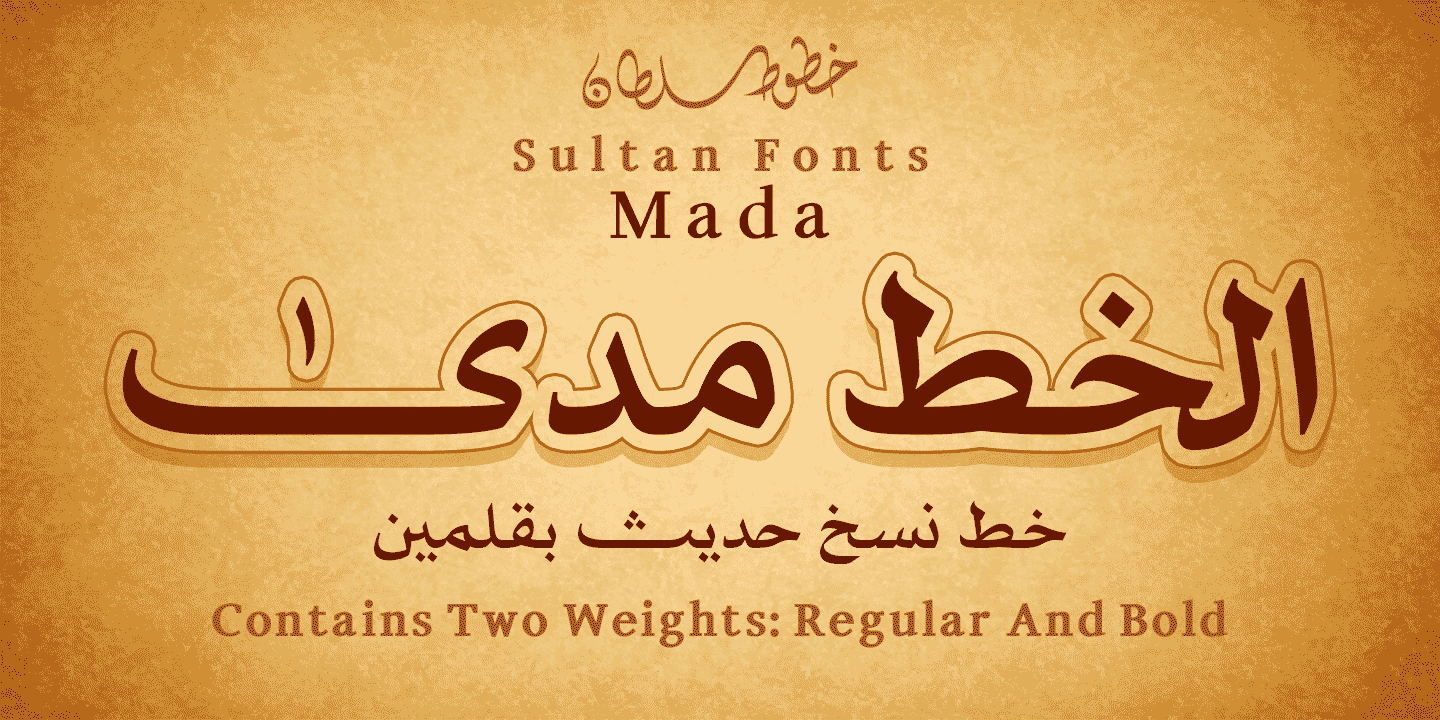
Perfect for Arabic-English bilingual publications, Middle Eastern cultural branding, international business communications, multilingual website design, global corporate materials, cross-cultural marketing campaigns, diplomatic documentation, and contemporary Arabic typography applications.
This font is exciting because it seamlessly bridges Arabic script tradition with modern Latin typography, creating harmonious letterforms that embody the elegant fusion and cultural sophistication found in contemporary multilingual communication and international design excellence.
Bridge cultures with typographic excellence using SF Mada Font Free Download, a harmoniously crafted typeface that embodies the elegant fusion of Arabic script tradition and contemporary Latin typography. This exceptional font brings the cultural sophistication and international appeal of multilingual design to modern projects, making it perfect for global organizations, multicultural businesses, and international institutions seeking to convey cross-cultural respect and the seamless integration of diverse linguistic traditions in professional communication.
SF Mada Font features expertly balanced letterforms with multicultural characteristics and international proportions that immediately demonstrate sophisticated understanding of both Arabic and Latin typographic principles. The culturally sensitive characters combine traditional script aesthetics with contemporary functionality, creating immediate associations with global communication, cultural bridge-building, and the refined sophistication that defines authentic international typography and cross-cultural design excellence throughout multinational business and diplomatic communities worldwide.
The font's remarkable multicultural character makes it invaluable for international corporations, diplomatic organizations, and global educational institutions where conveying cultural respect and multilingual competence is essential for building international relationships and maintaining cross-cultural credibility. Whether you're designing materials for multinational companies serving Arabic-speaking markets, creating communications for international development organizations emphasizing cultural sensitivity, or developing brand identities for global educational institutions, SF Mada Font delivers the authentic international aesthetic that resonates with audiences expecting sophisticated cross-cultural communication and respectful multicultural representation.
International communication professionals and multicultural design specialists worldwide choose the SF Mada Font Free Download for projects requiring cultural authenticity and global communication appeal. The font works brilliantly for diplomatic missions promoting international cooperation, multinational corporations emphasizing cultural inclusivity, educational institutions offering Arabic language programs, and any organization seeking to establish connections with Arabic-speaking audiences while maintaining the highest standards of typographic excellence and cultural sensitivity.
The comprehensive SF Mada Font family includes extensive weights and styles designed to work harmoniously across Arabic and Latin character sets, enabling international designers to create sophisticated multilingual hierarchies for complex global content. Each variation maintains the signature multicultural character while providing complete design flexibility for diverse international applications, from detailed diplomatic documentation to bold global advertising campaigns that must communicate effectively across cultural and linguistic boundaries.
This typeface excels in both traditional international publishing environments where cultural accuracy is paramount and modern digital platforms where multilingual content must engage diverse global audiences across various devices and technologies. The font's technical precision ensures optimal performance across all international communication channels, from printed diplomatic materials to responsive multilingual websites that must maintain cultural authenticity and typographic excellence.
SF Mada Font's multicultural aesthetic enhances the perceived value of international content while demonstrating genuine respect for Arabic cultural heritage and contemporary global communication standards. The font's sophisticated character helps establish immediate credibility with international audiences while projecting the cultural competence that defines successful global organizations.